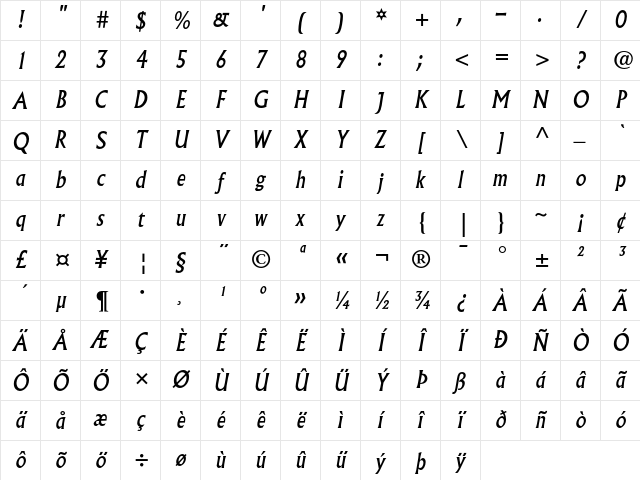
Albertus MT Italic
Albertus MT Family
Complete Albertus MT Italic glyph index. Displaying only characters natively supported by Albertus MT Italic font.
Design Context for Albertus MT
Albertus MT is a composed and adaptable typeface that performs quietly and consistently across a wide range of design contexts. The slanted form adds forward momentum and visual energy.